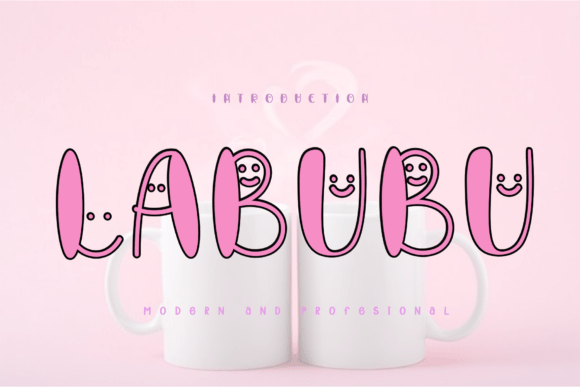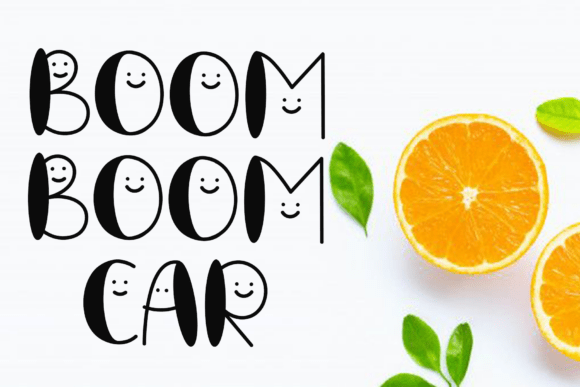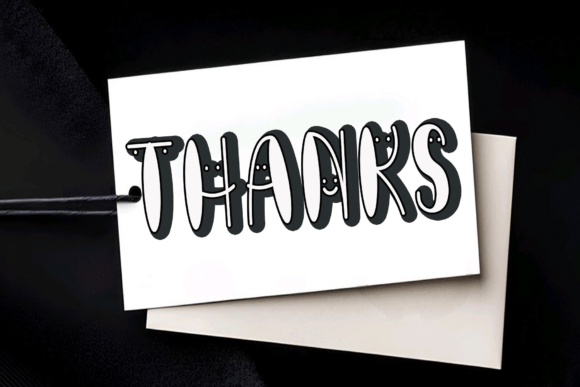
Labubu Font
Labubu is a sweet and friendly handwritten font. Fresh and casual, this font is ideal for writing wedding invitations, cards, or any other design that might need a lovely touch.